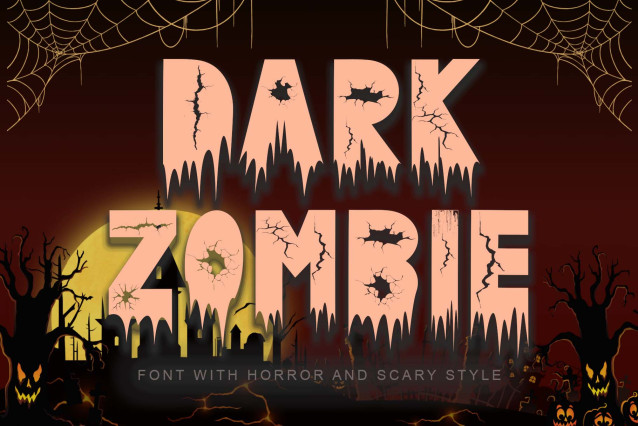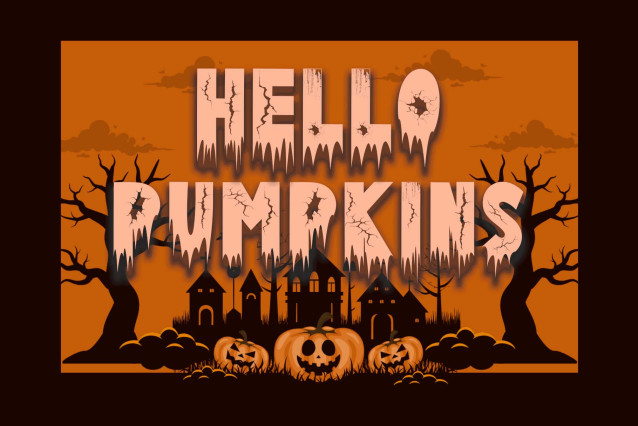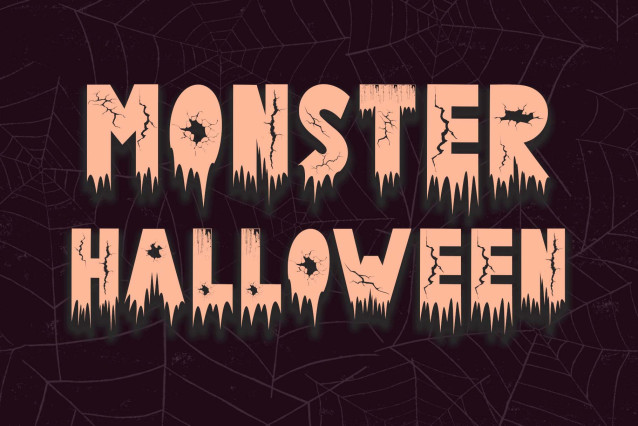
Dark Zombie Font
Dark Zombie Font is a unique and spooky horror font. It features uppercase and lowercase letters, numerals, punctuation, and multilingual support. It’s perfect for Halloween, movie titles, book titles, Christmas, back to school, fall, scary stories, logos, tattoos, stickers, and more.